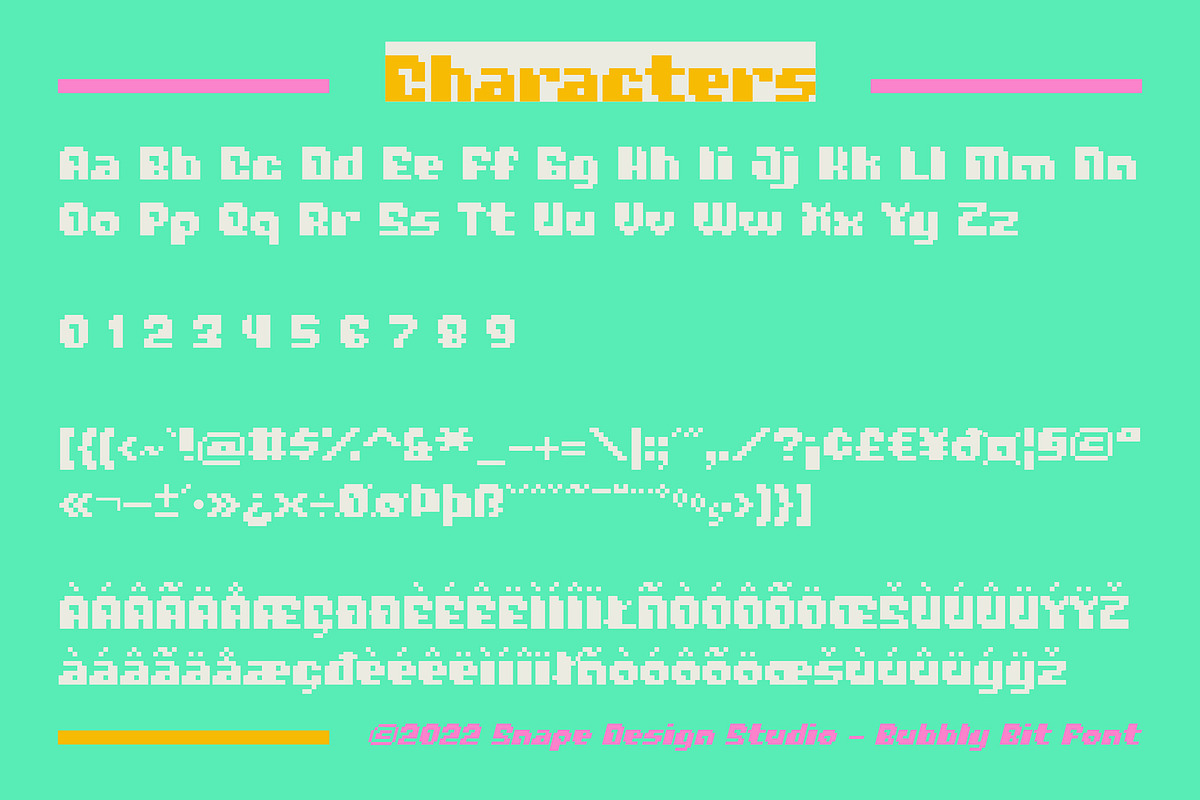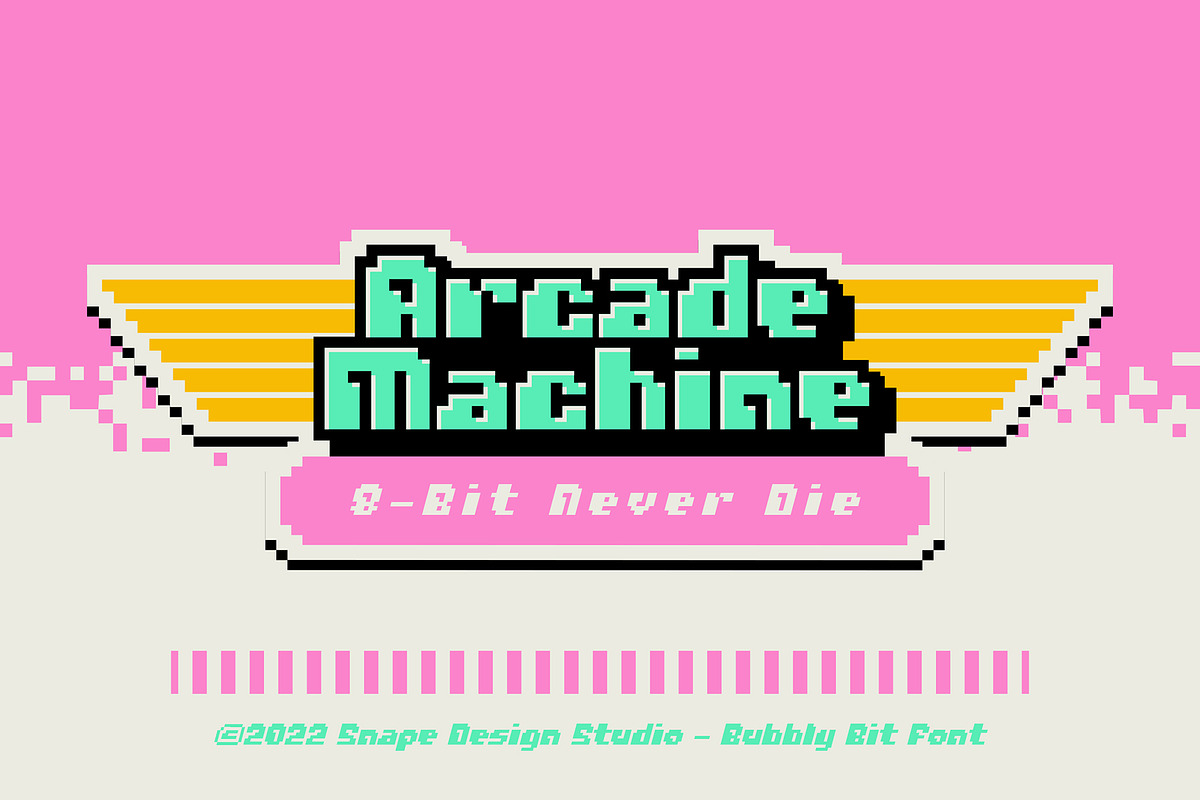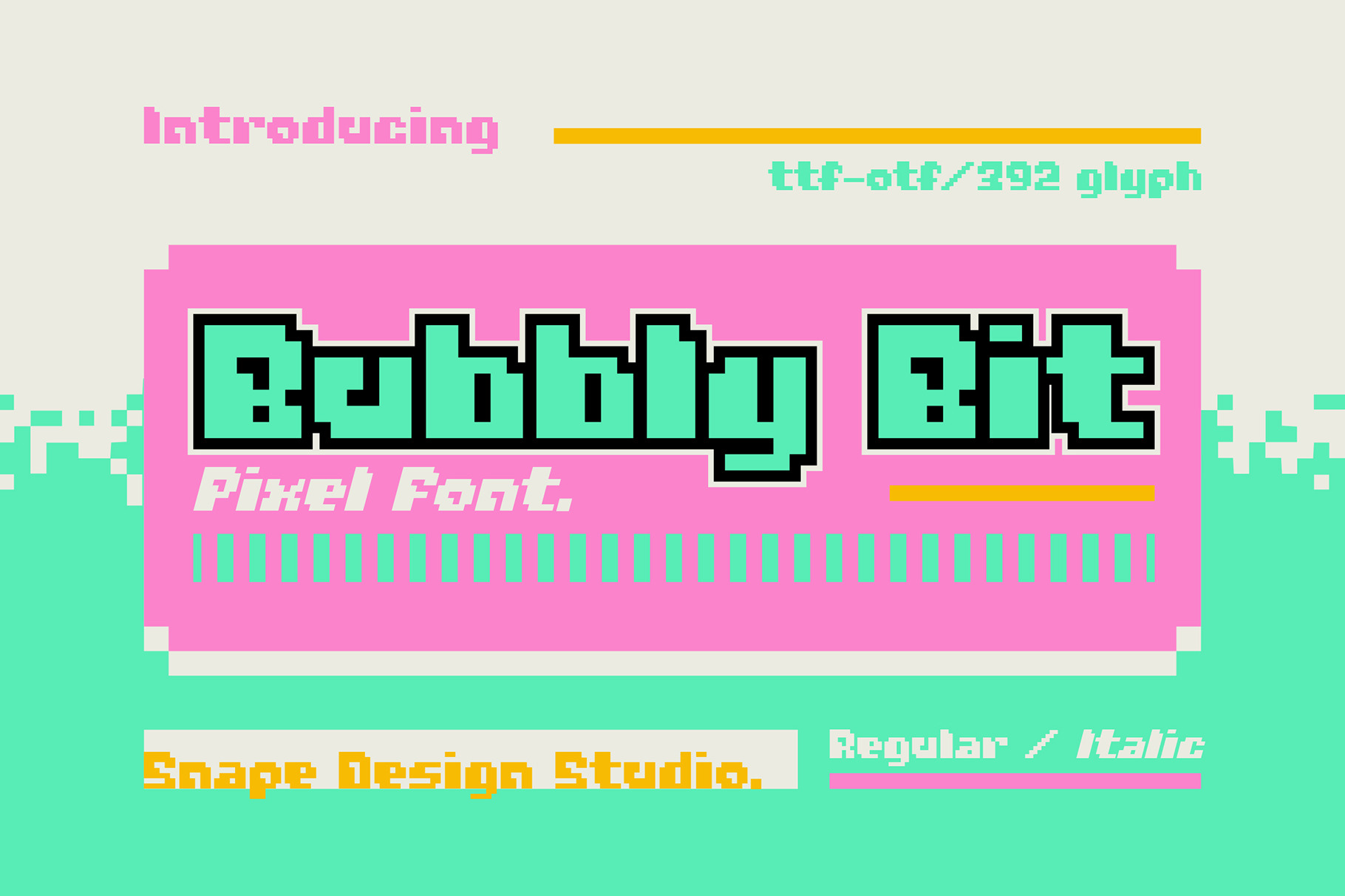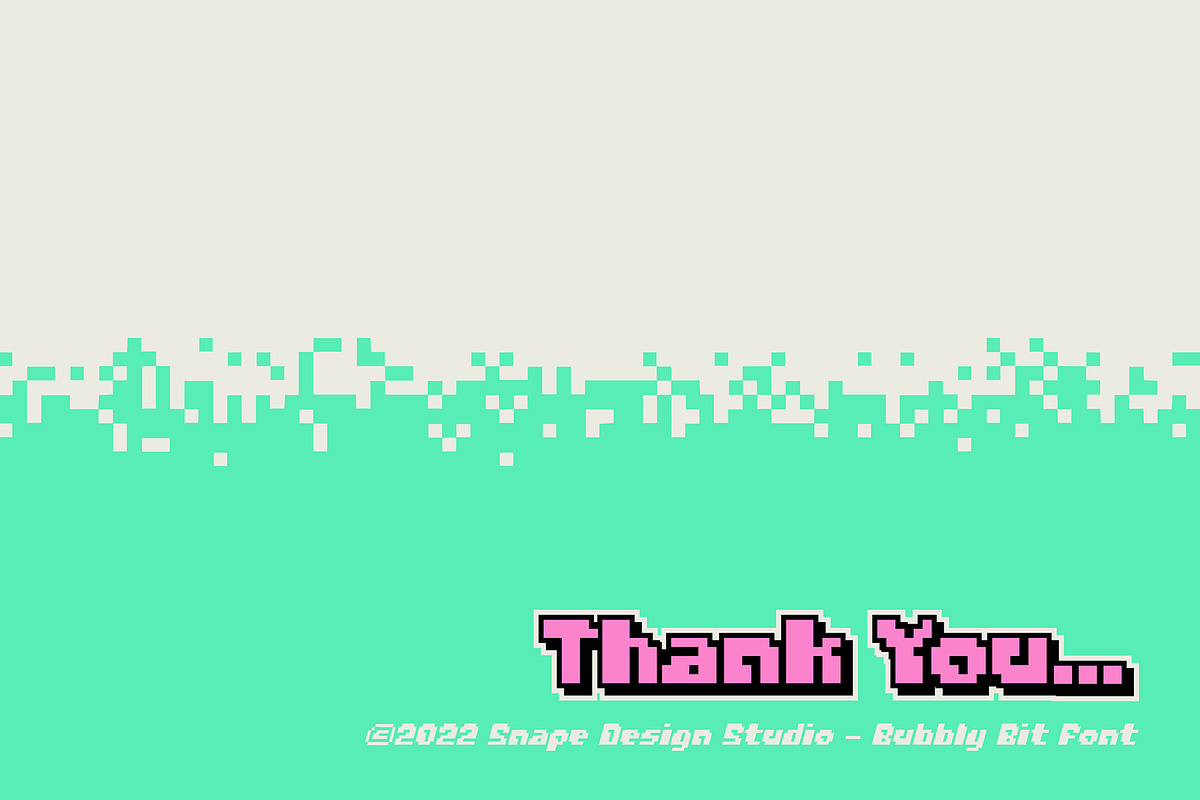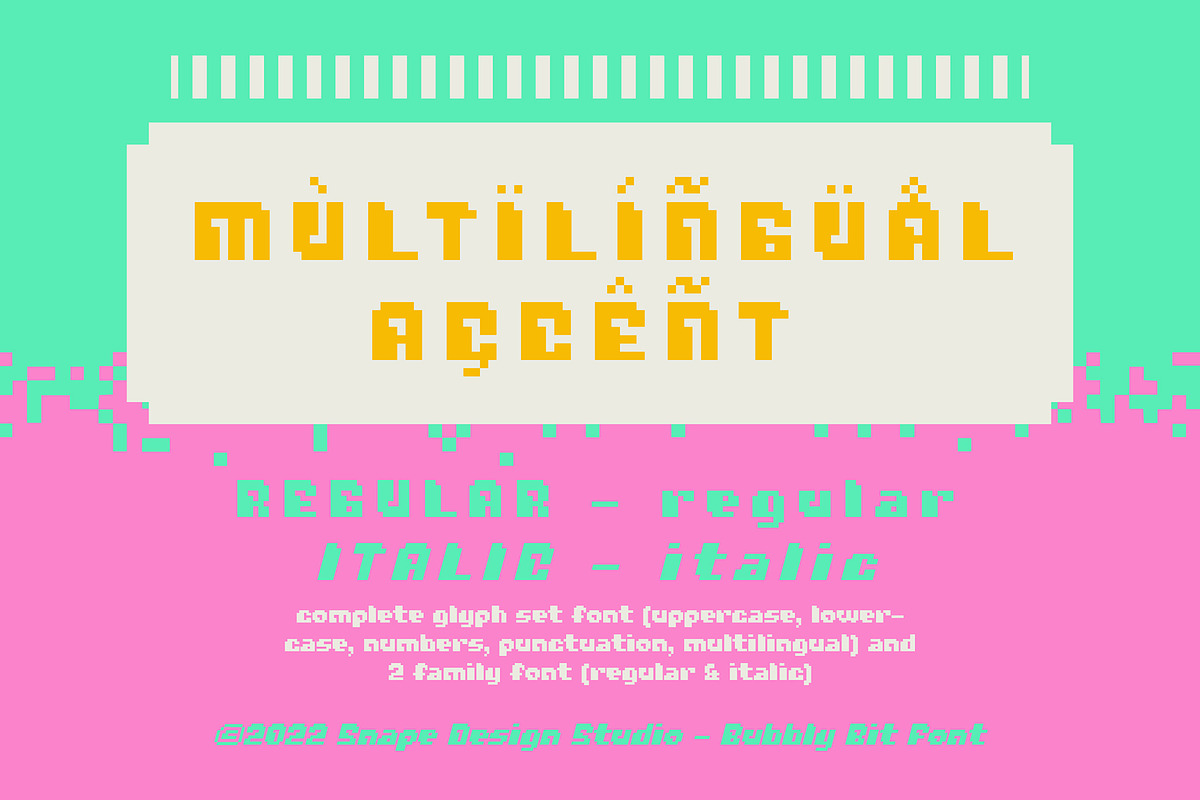
Bubbly Bit - Pixel Font
Bubbly Bit is a retro pixel font style, perfect for retro game design theme, Also suitable for movie, documenter, film, logo, poster, game, book cover, headlines, title and many more projects. Add this font to your creative ideas and notice how it will make them stand out!